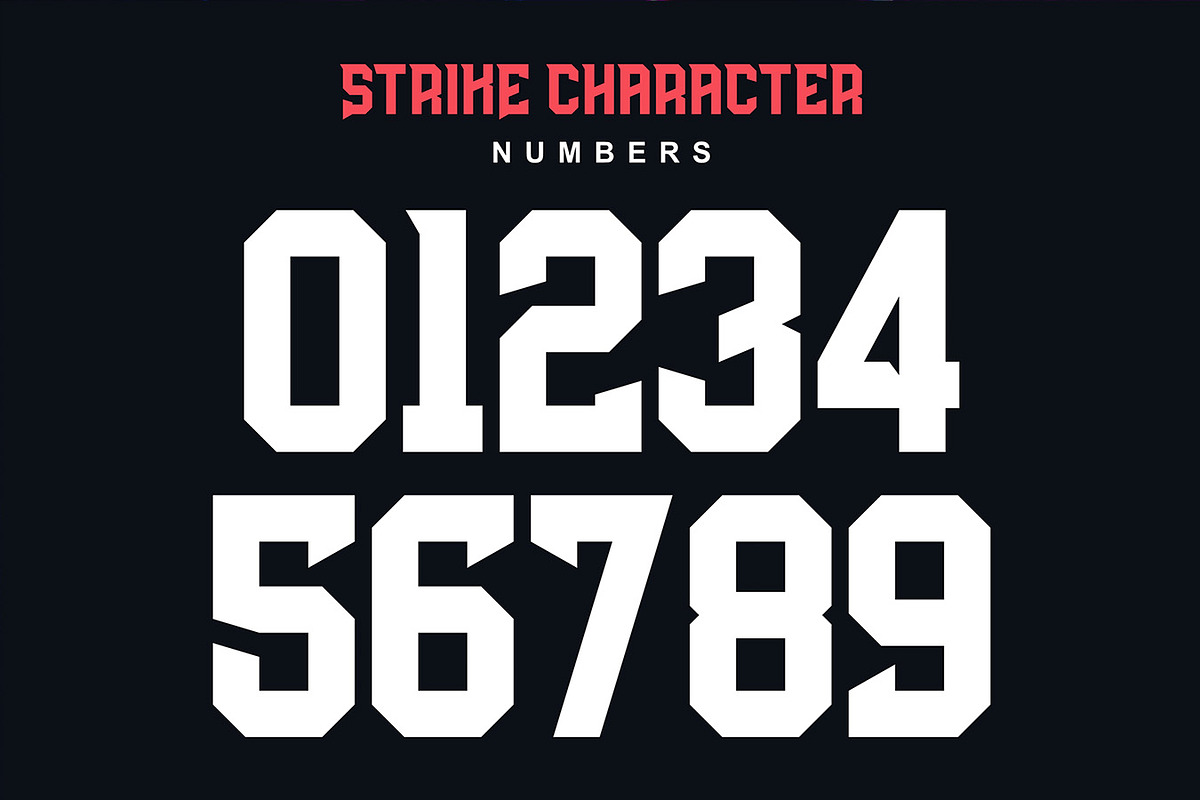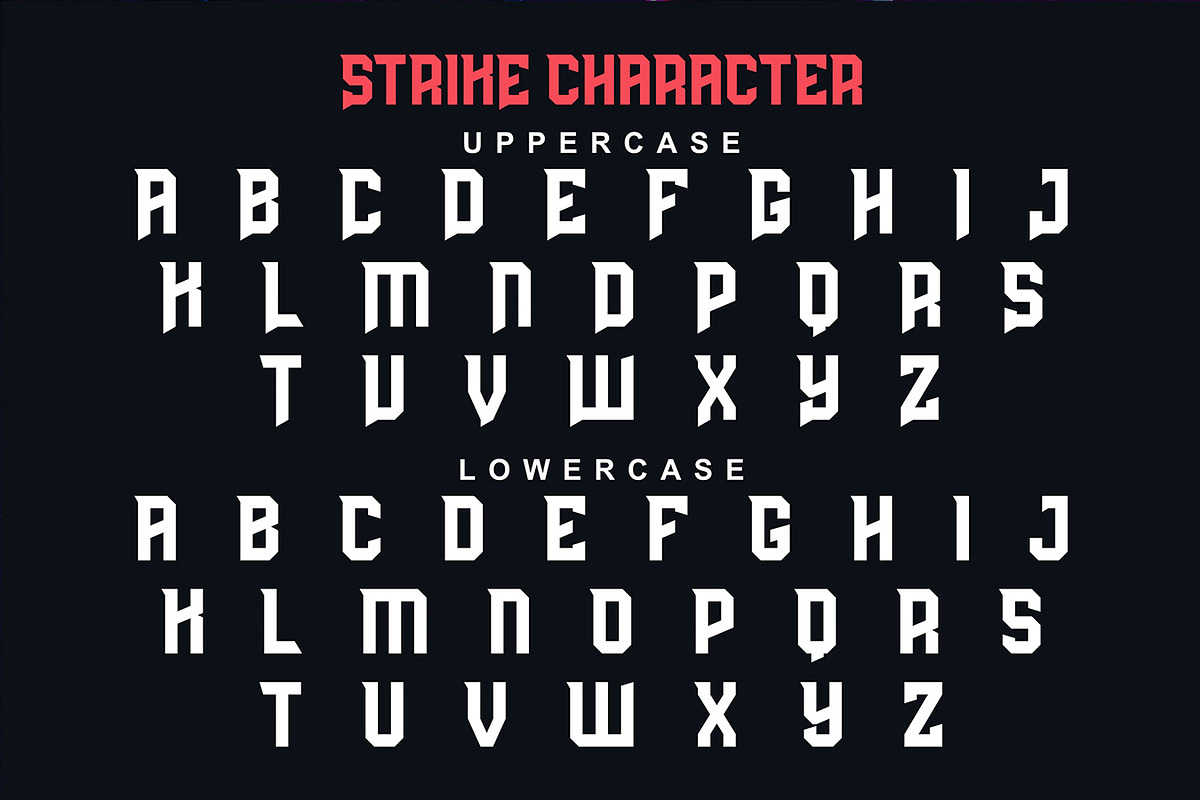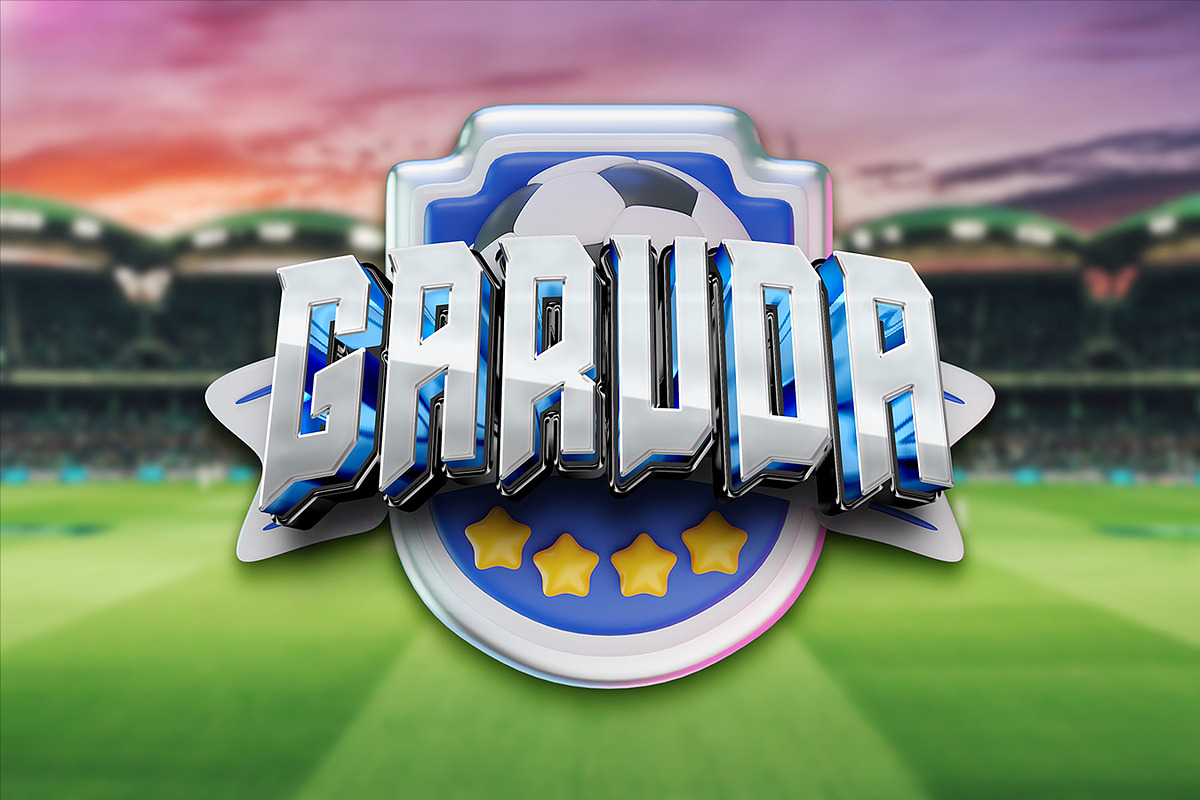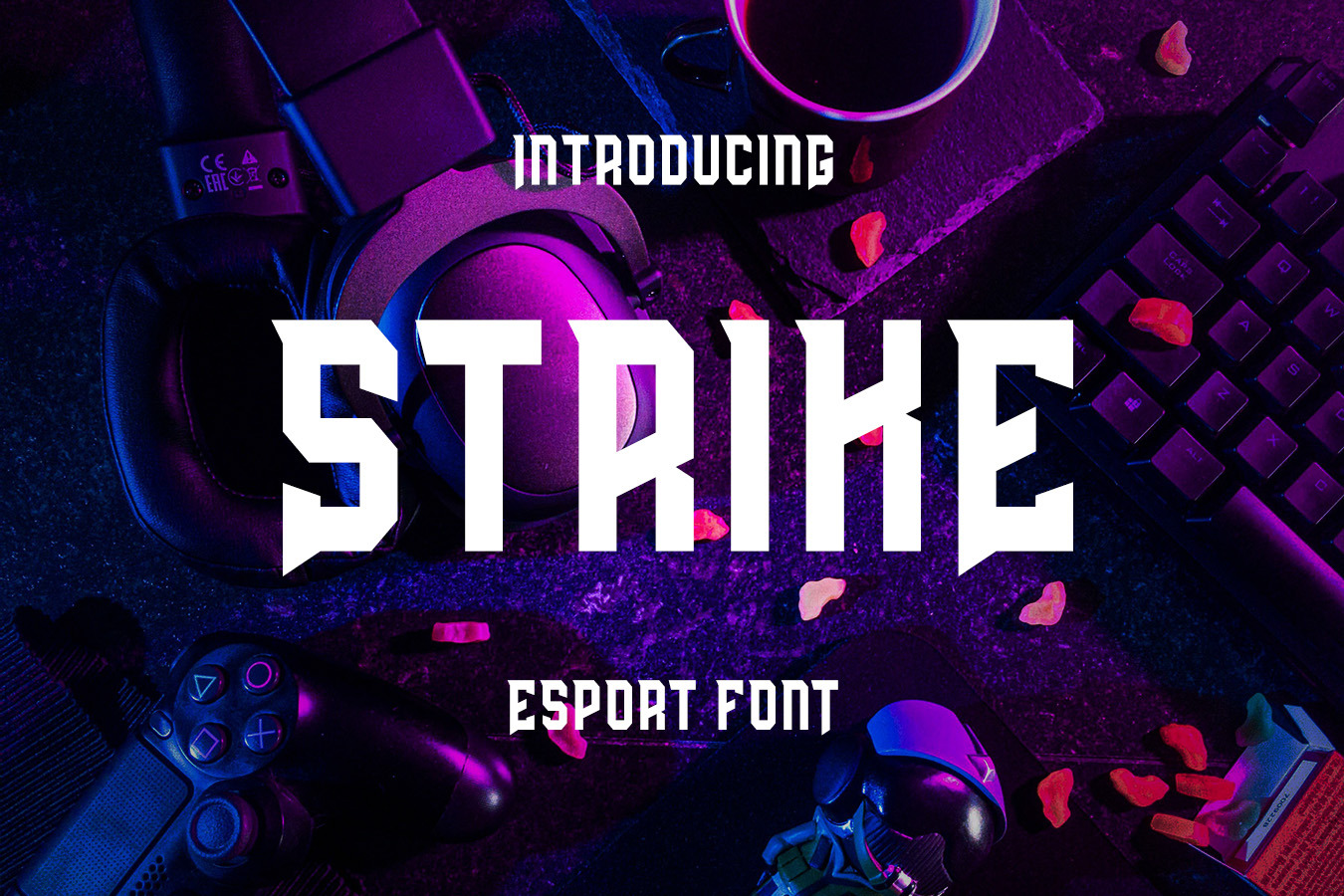
Strike - ESport Game Font
Strike is a modern sans serif font with a strong and bold esports style. This font is suitable for a variety of purposes, including logos, titles, and other graphic designs.